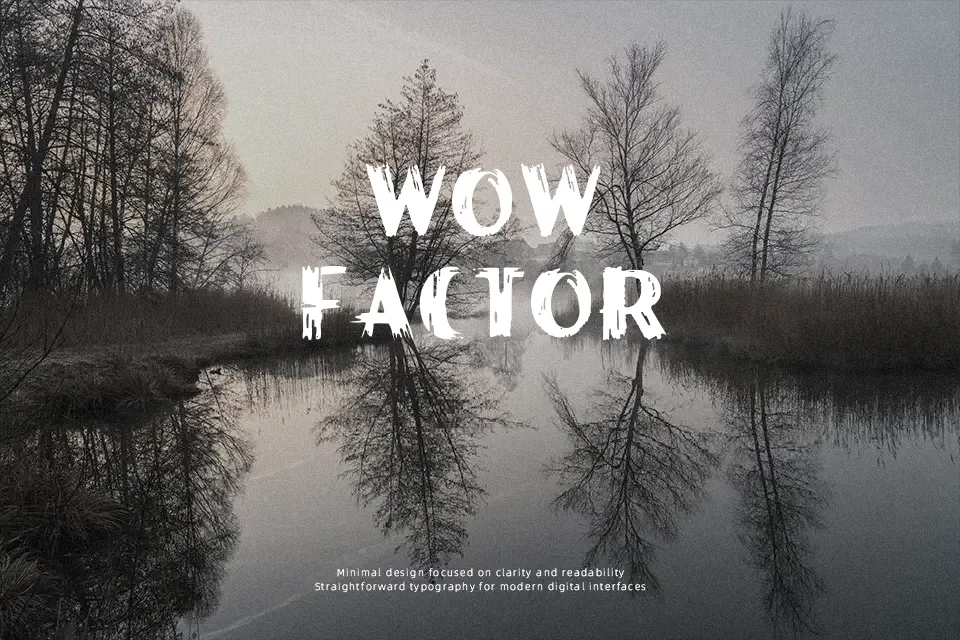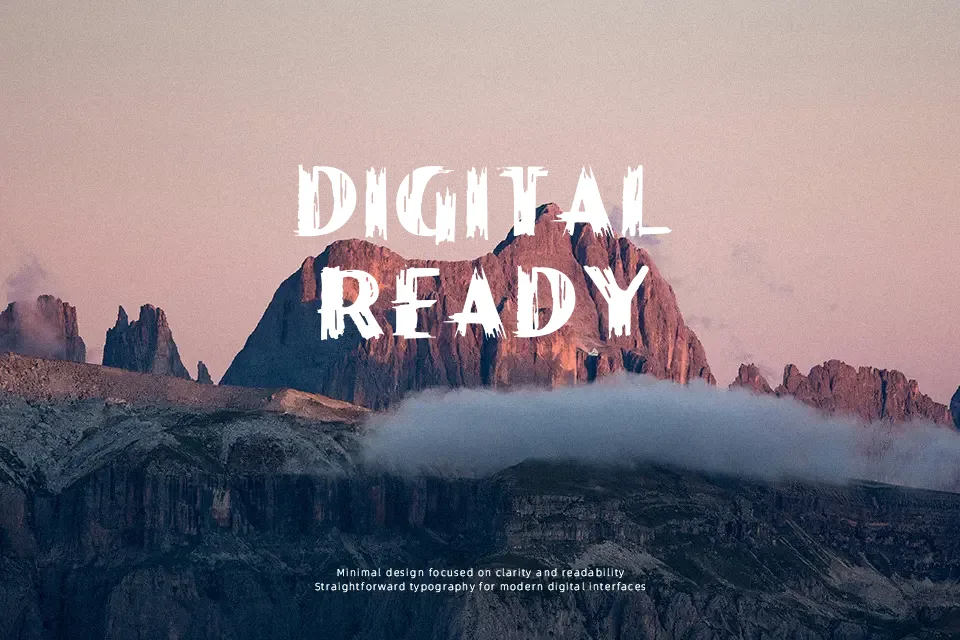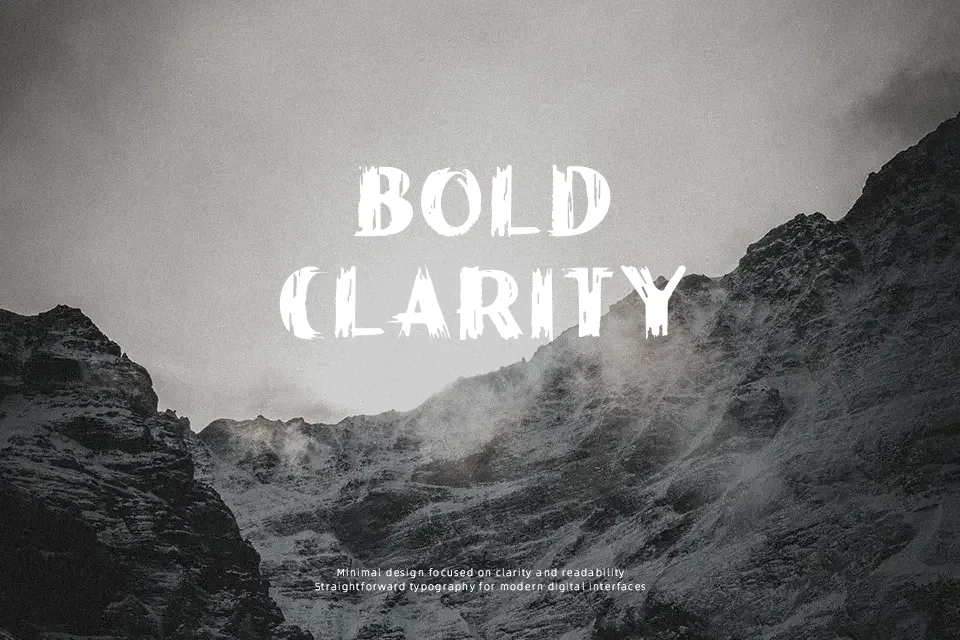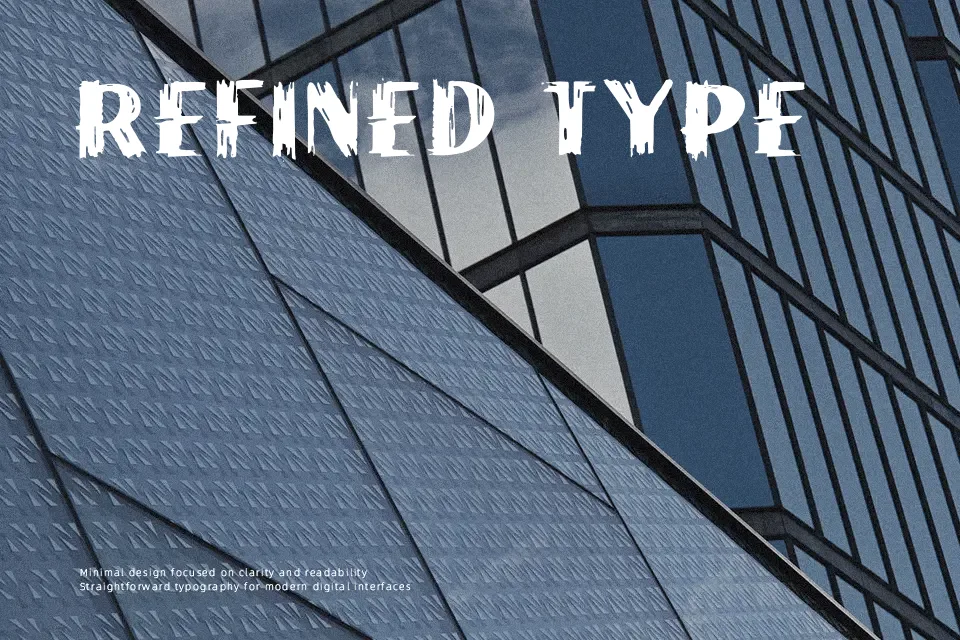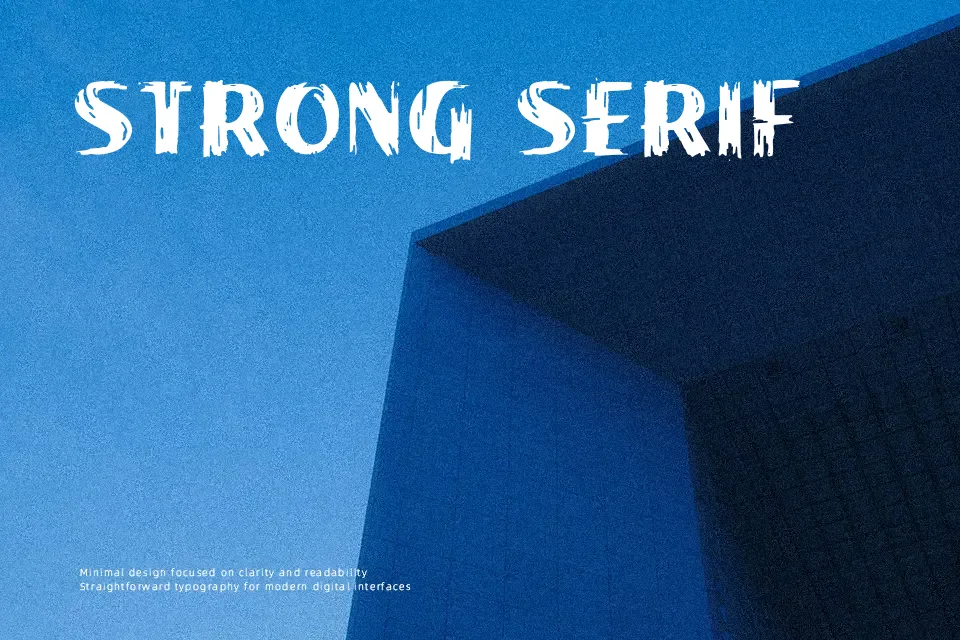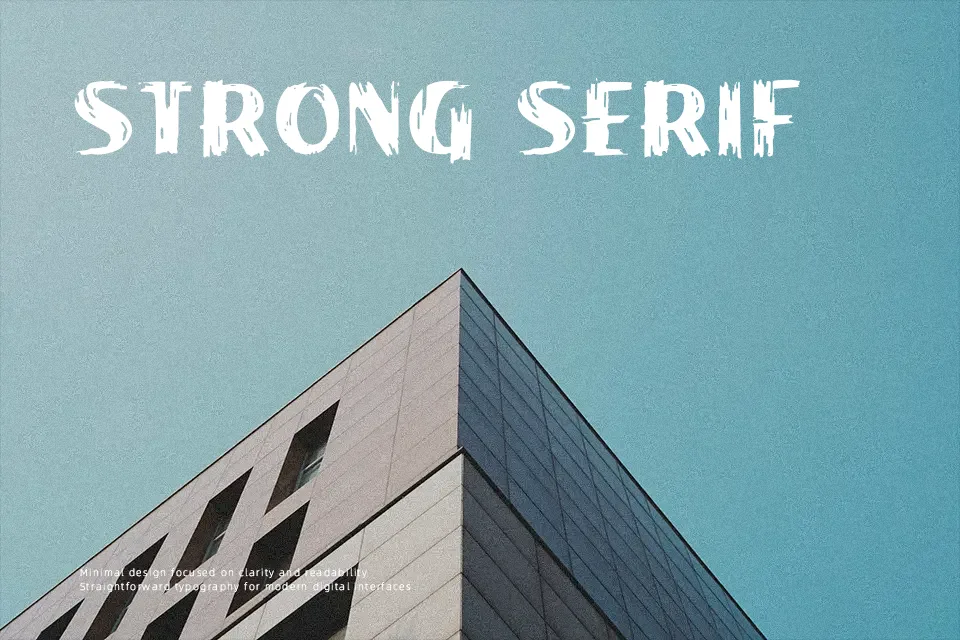
Paint Peel Initials Font
Designed by Richard William Mueller
Paint Peel Initials Font uses uppercase, stencil-like letterforms marked by irregular chipped gaps and rough, paint-worn edges. Its broad, heavy shapes create a direct visual rhythm, while the cut-out construction keeps individual letters recognizable at display sizes. Spacing appears fairly open enough to separate the distressed forms in short words. The typeface works most convincingly in large headlines, signage, and graphic compositions where texture is part of the message. Fine details and broken strokes become harder to resolve in small text, so it is not a comfortable choice for extended reading.
Best For: industrial poster headlines,weathered product labels,workshop signage,album cover titles
Perfect for headline, music, and packaging, with a bold and decorative style.